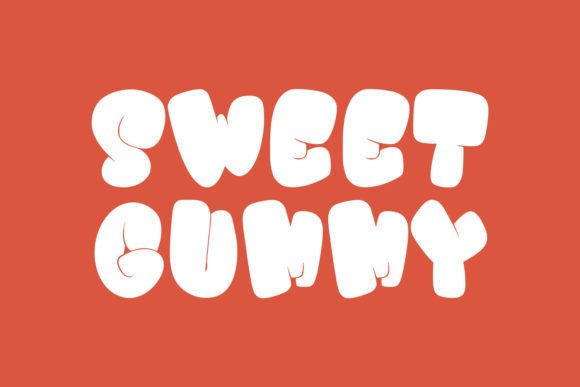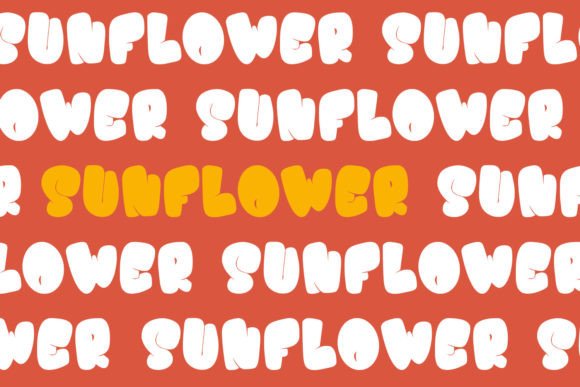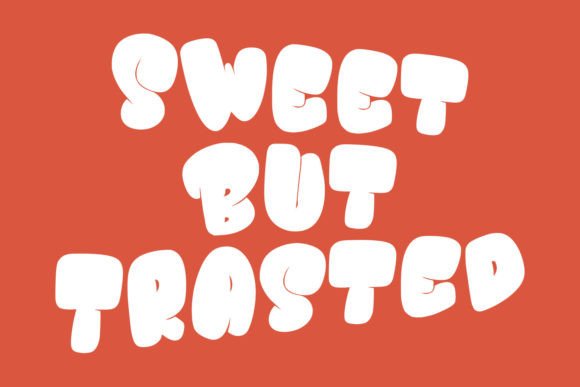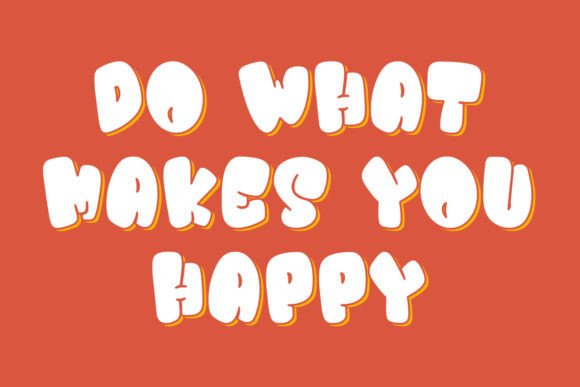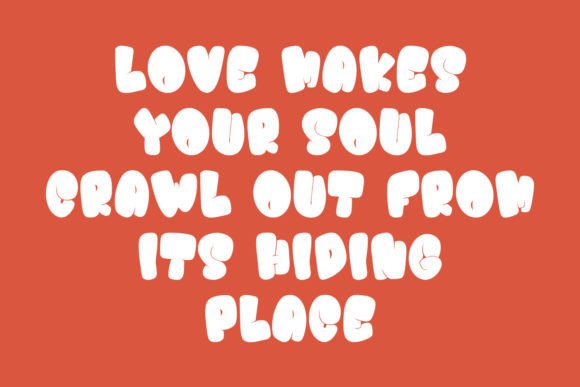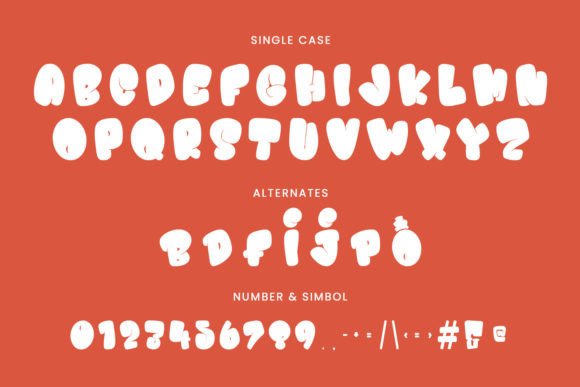
Introduction to Podles Atubin Font
Podles Atubin fat bubble display font.
Heavy stroke, fun character with a bit of ligatures To give you an extra creative work.